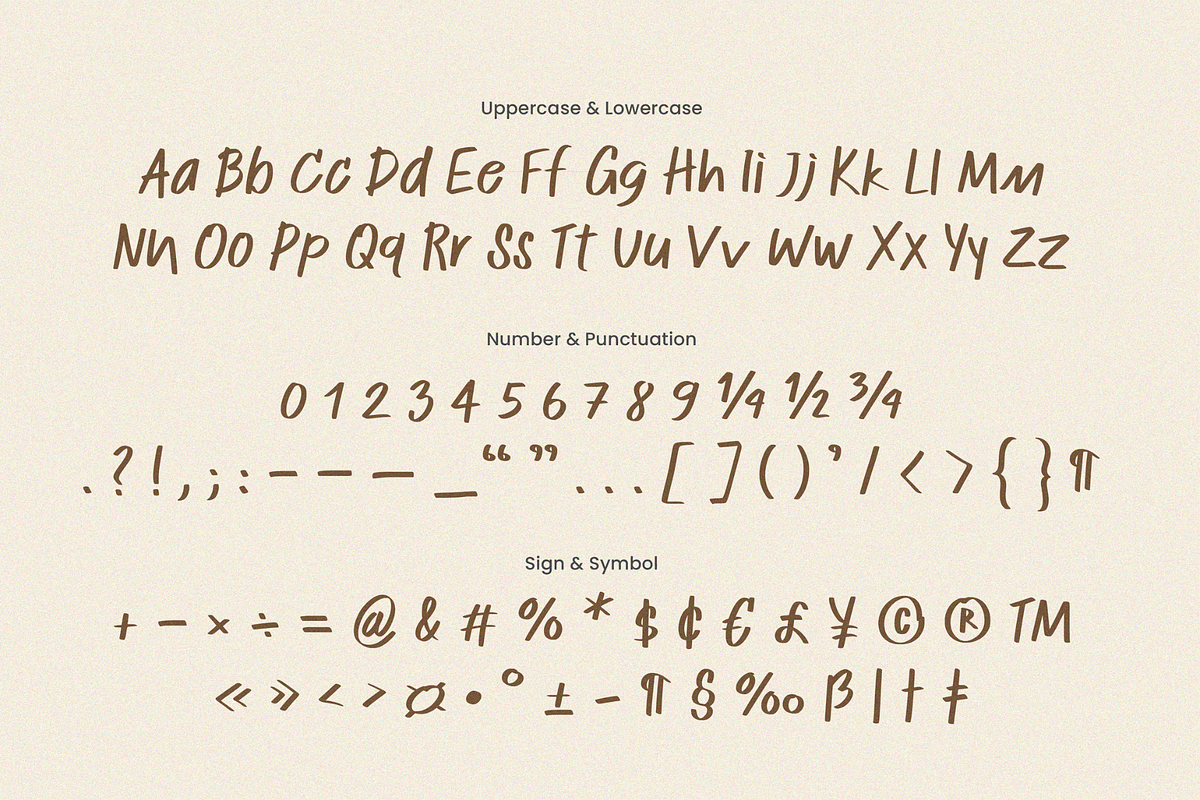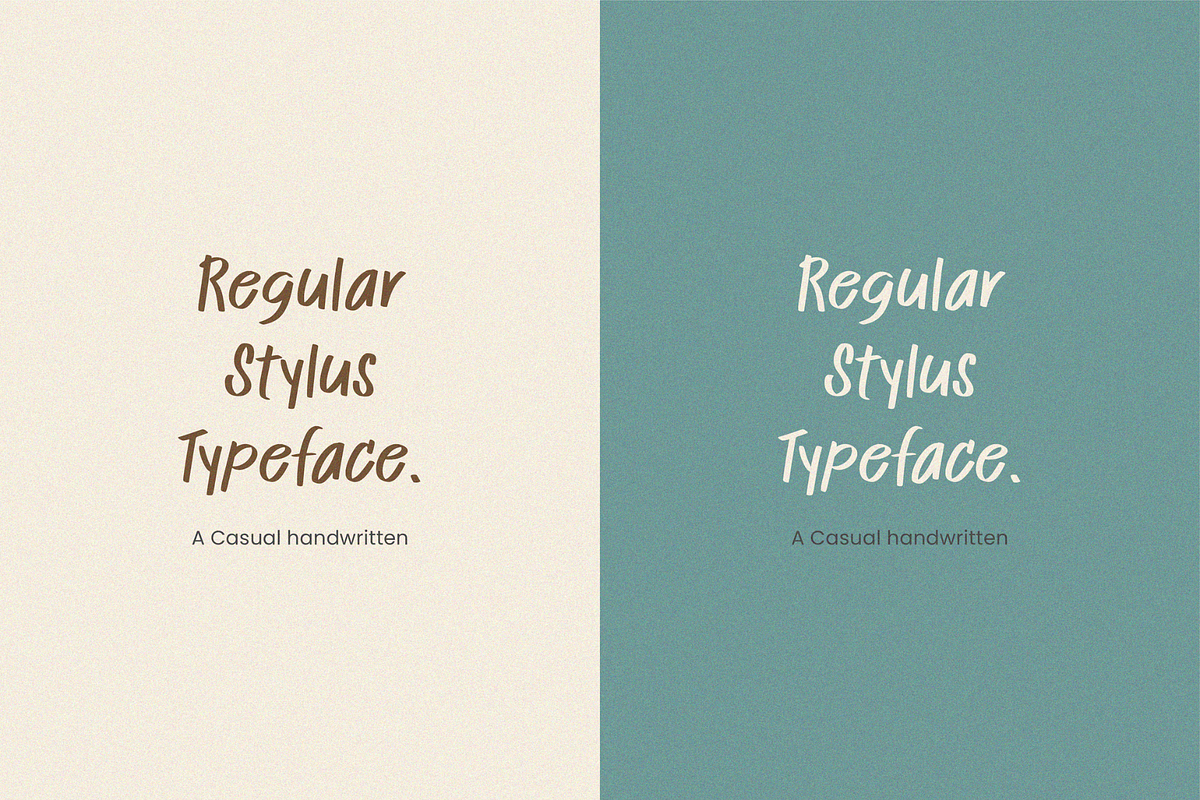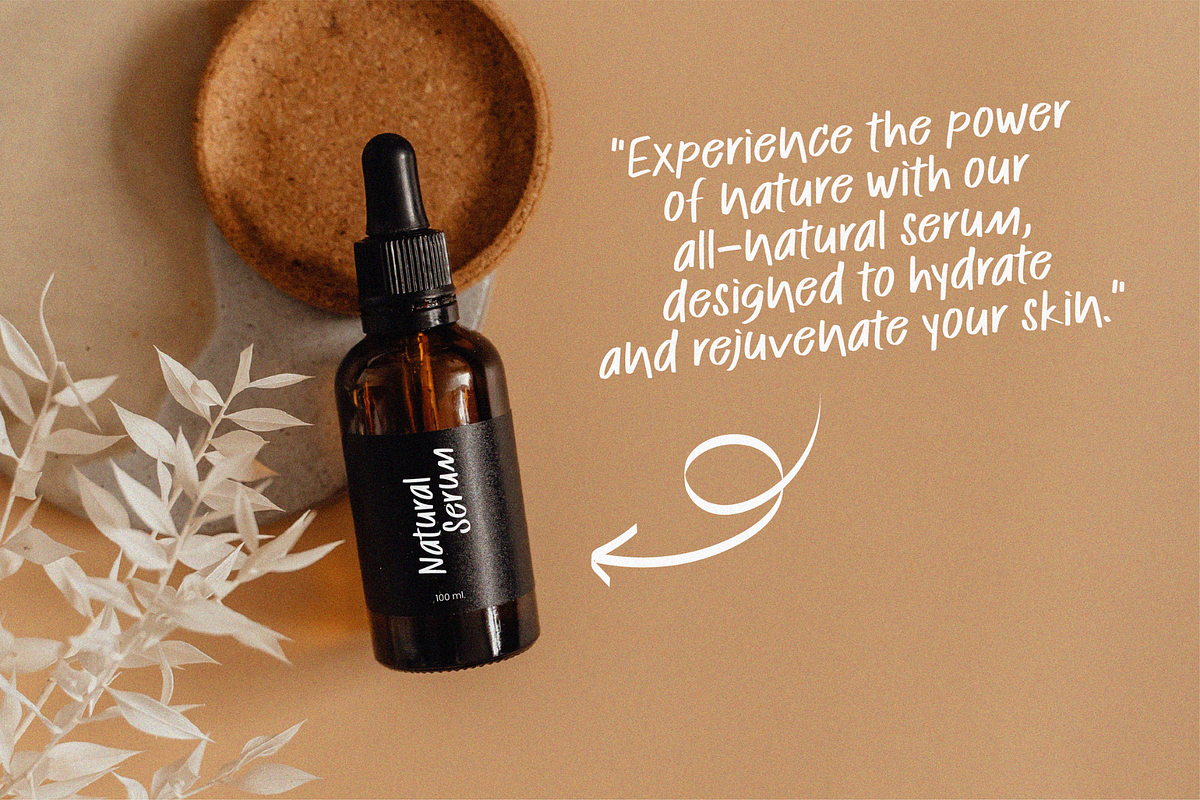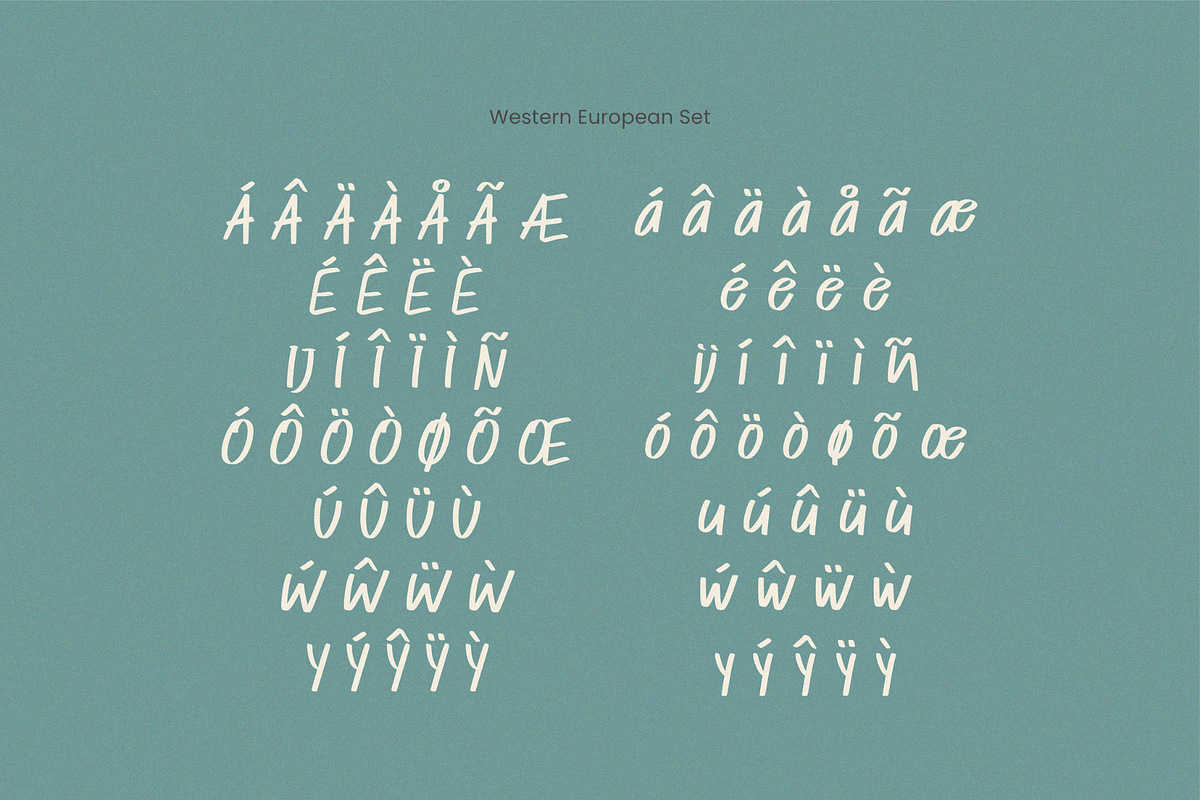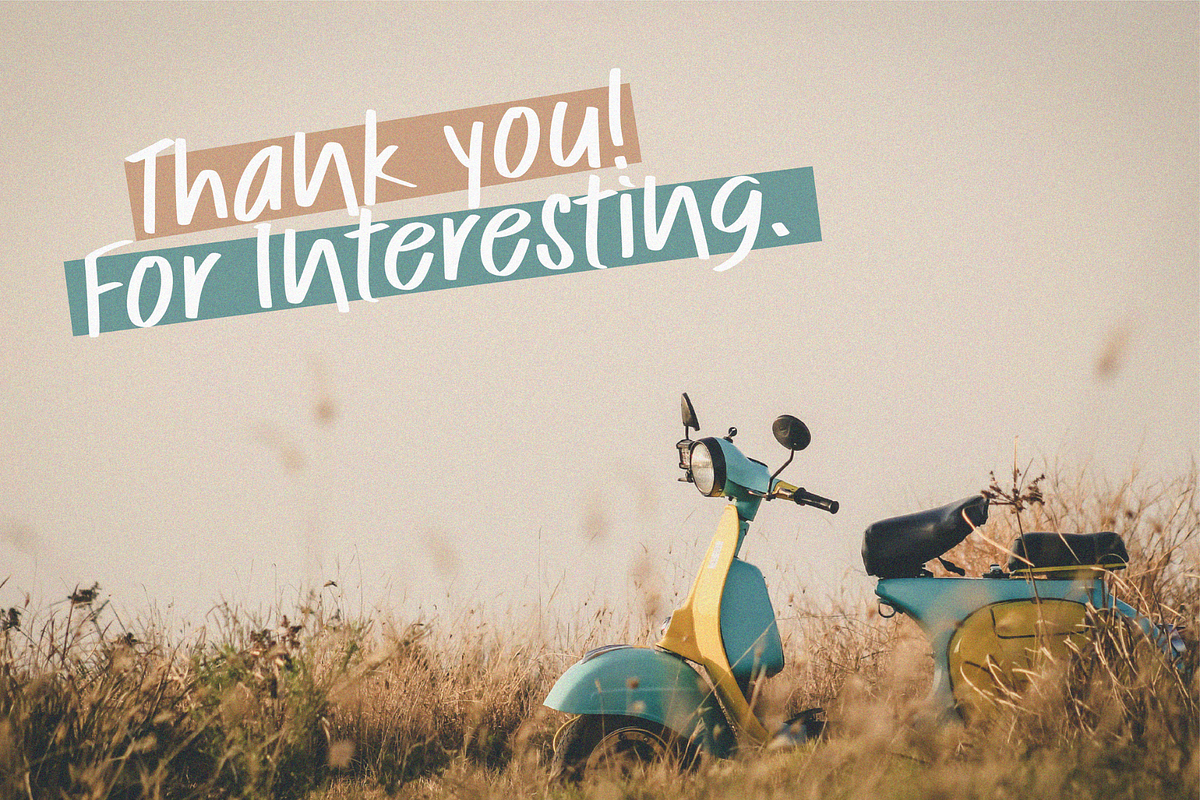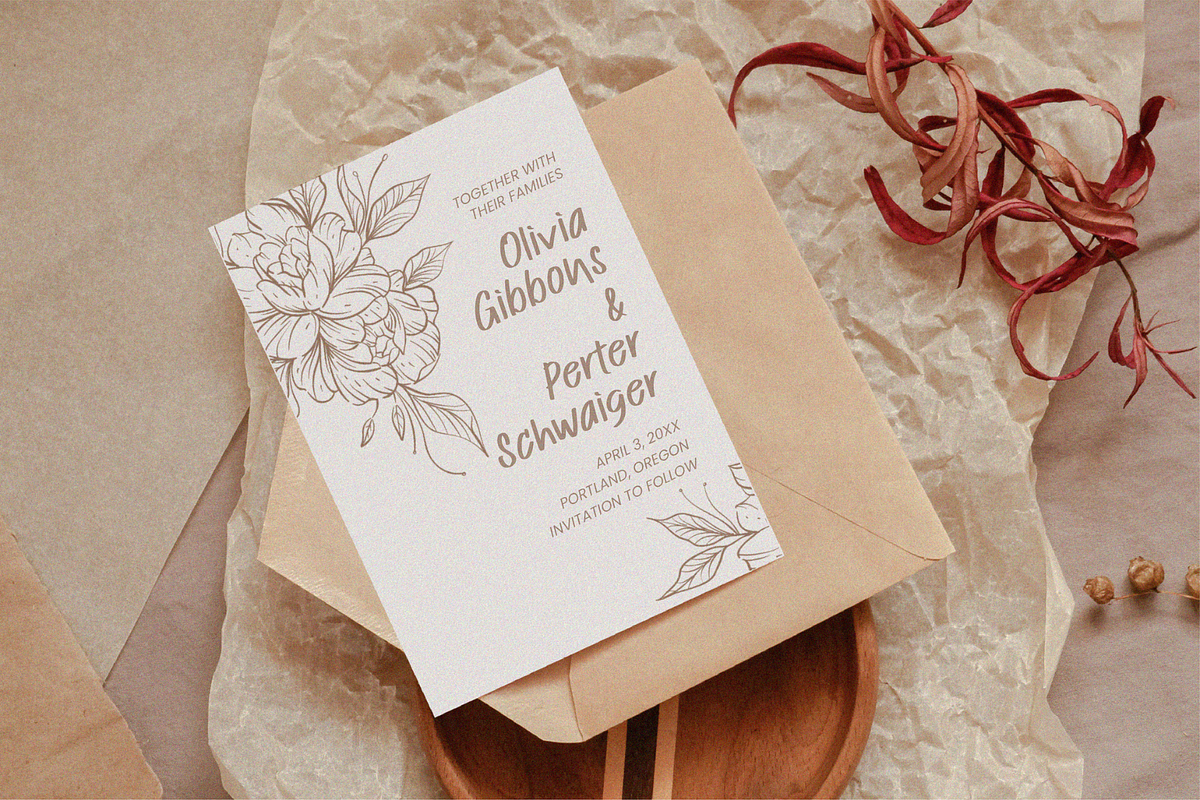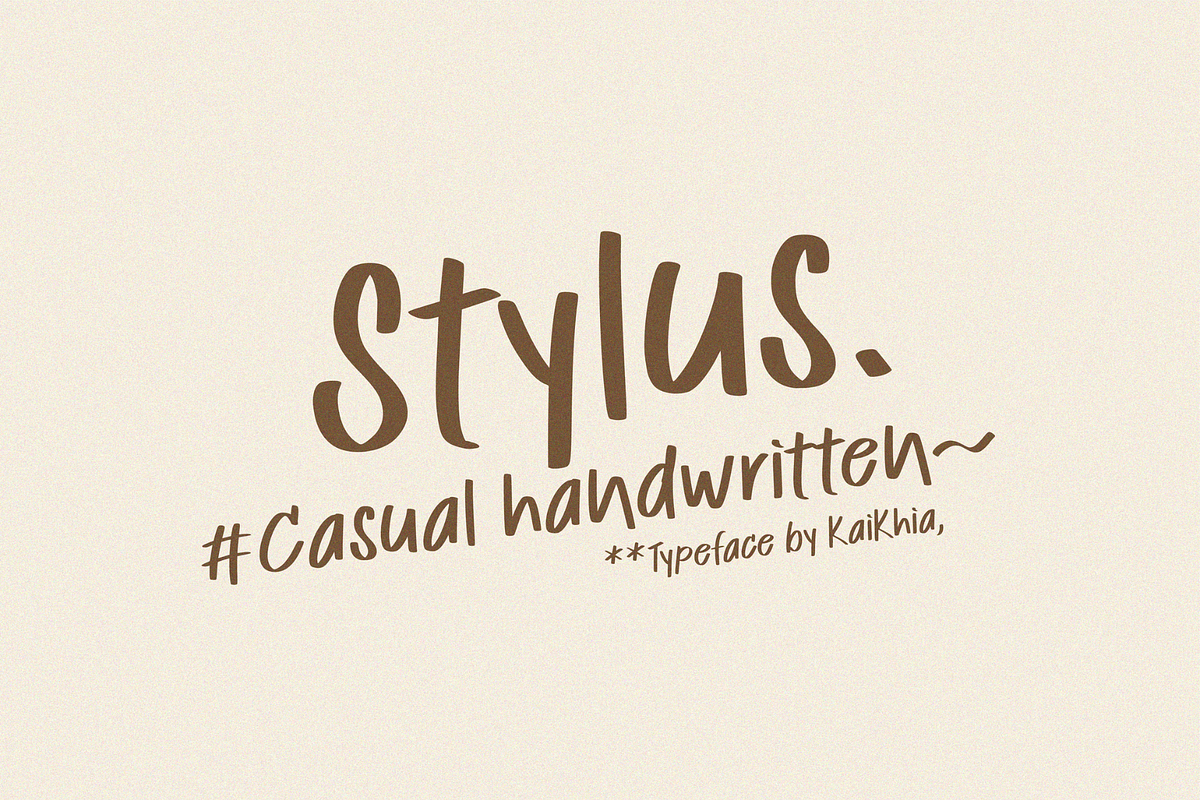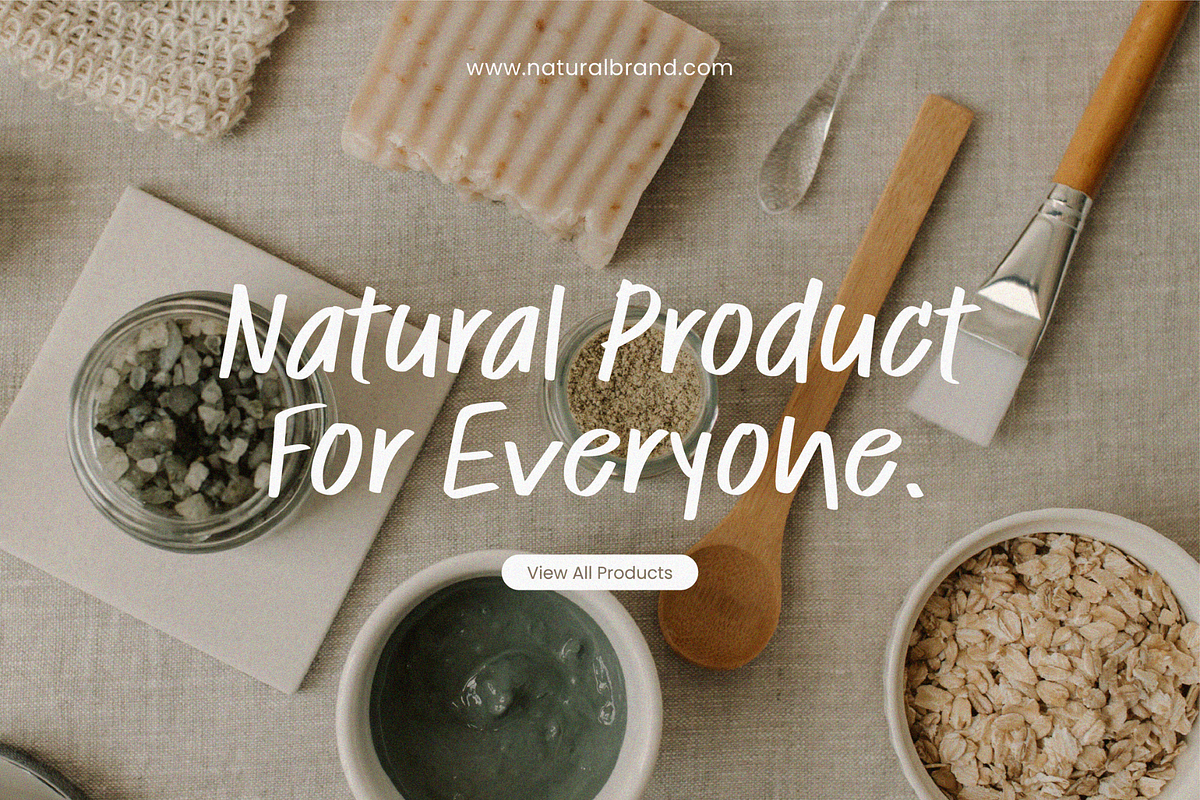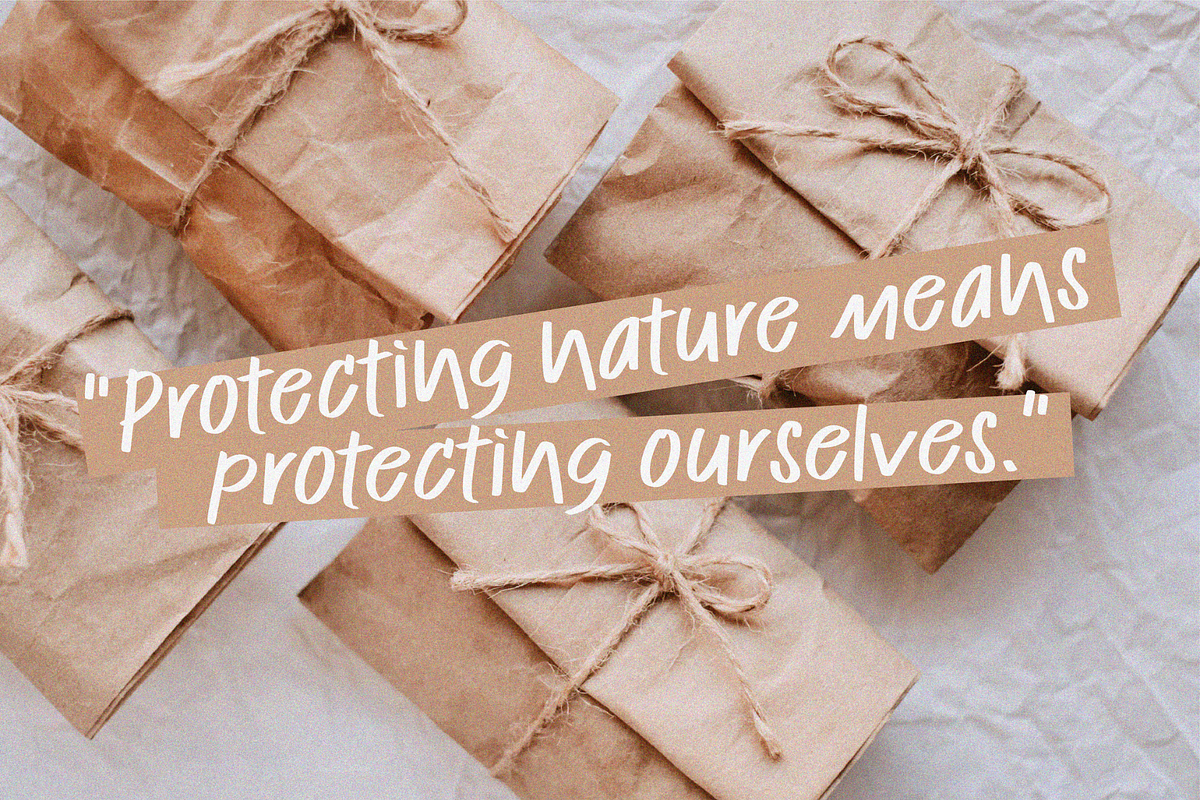
Stylus, Casual Handwritten Font.
Introducing our new product, Stylus, Casual Handwritten Font.
Stylus Font: Perfect for fun content such as travel blogs, travel videos, or vlogs, it adds a lively touch to your content. Additionally, Stylus Font is also suitable for projects like notebooks, posters, branding, logos, packaging, magazines, book covers, invitation card and more.